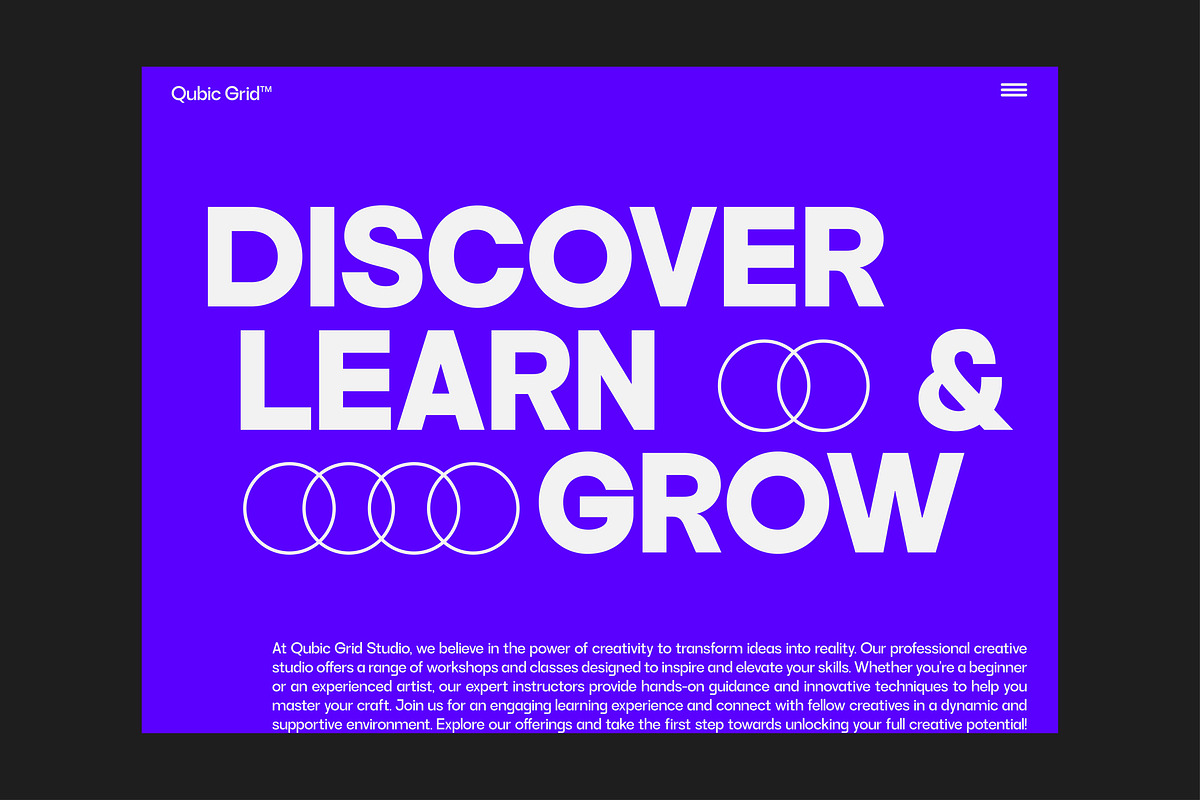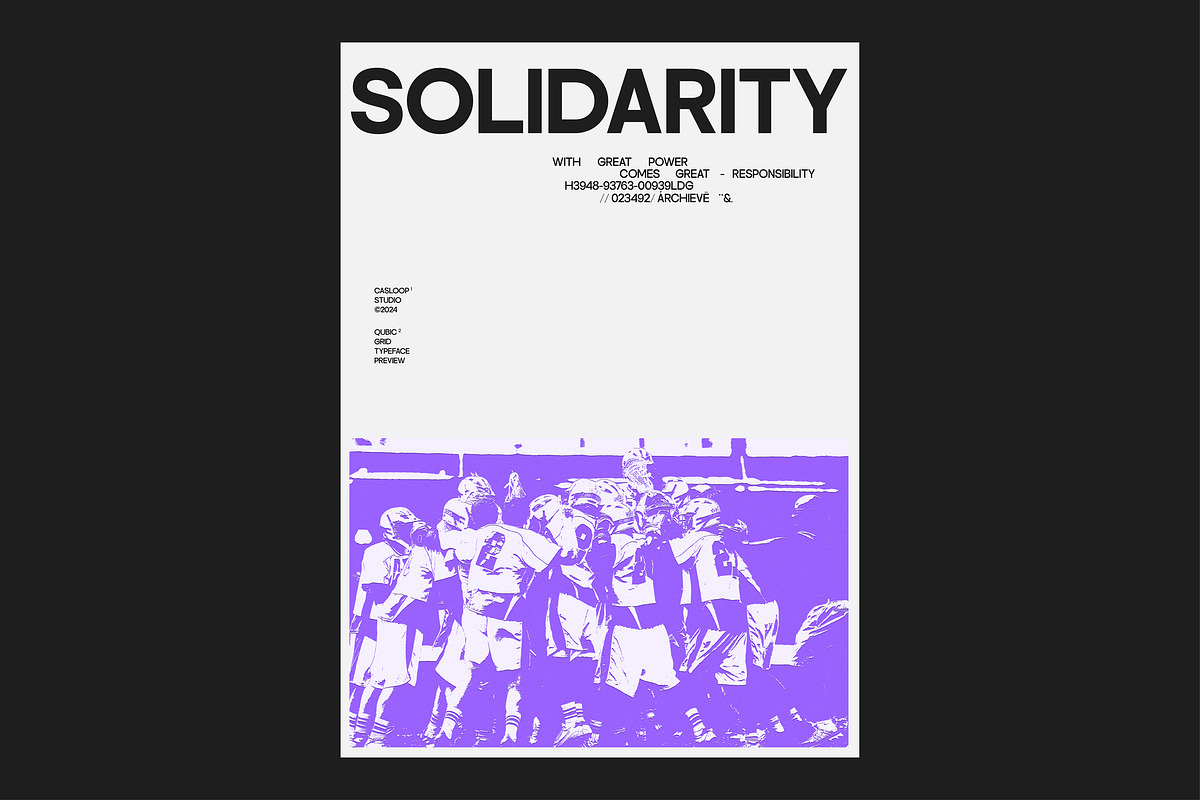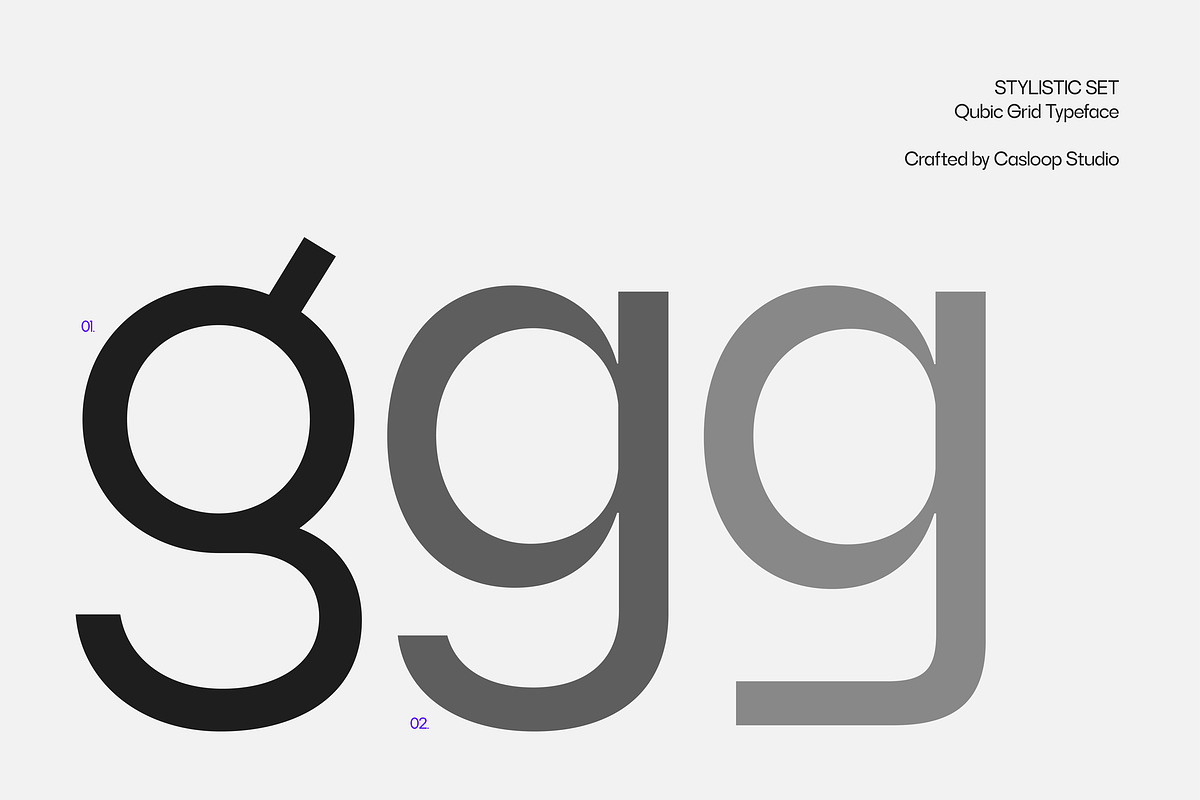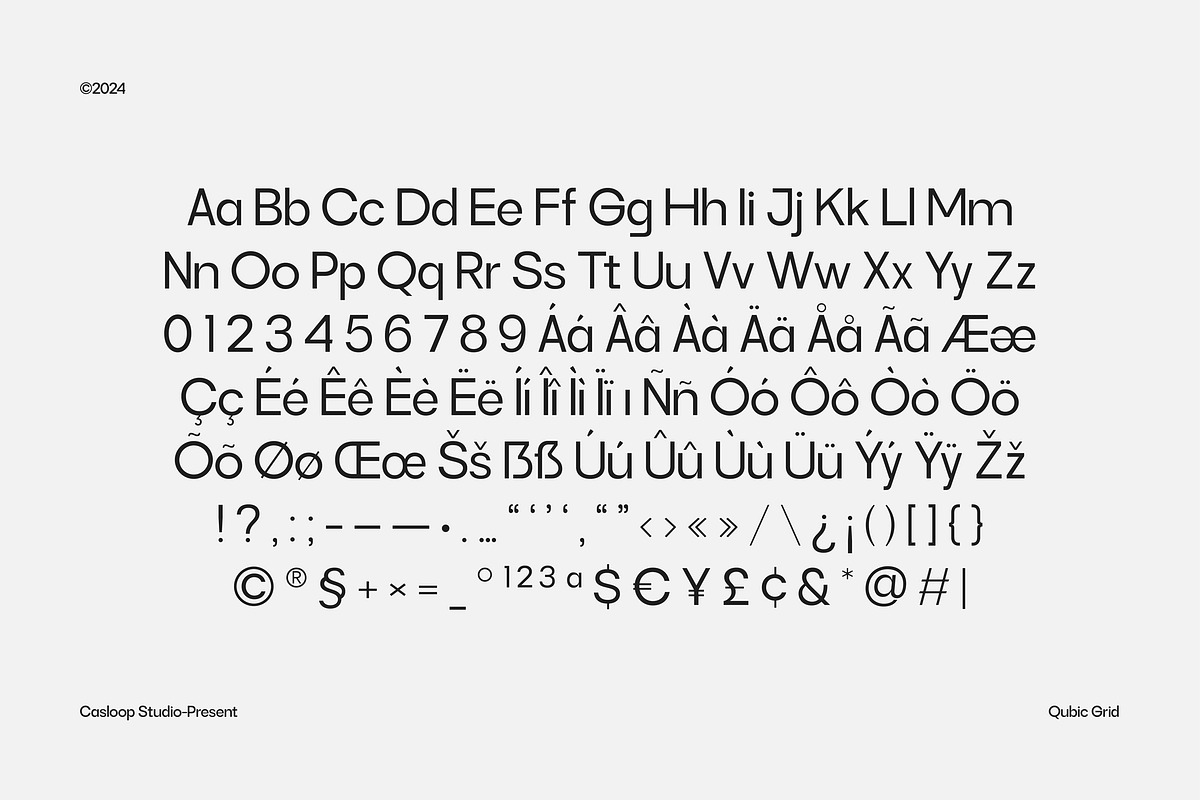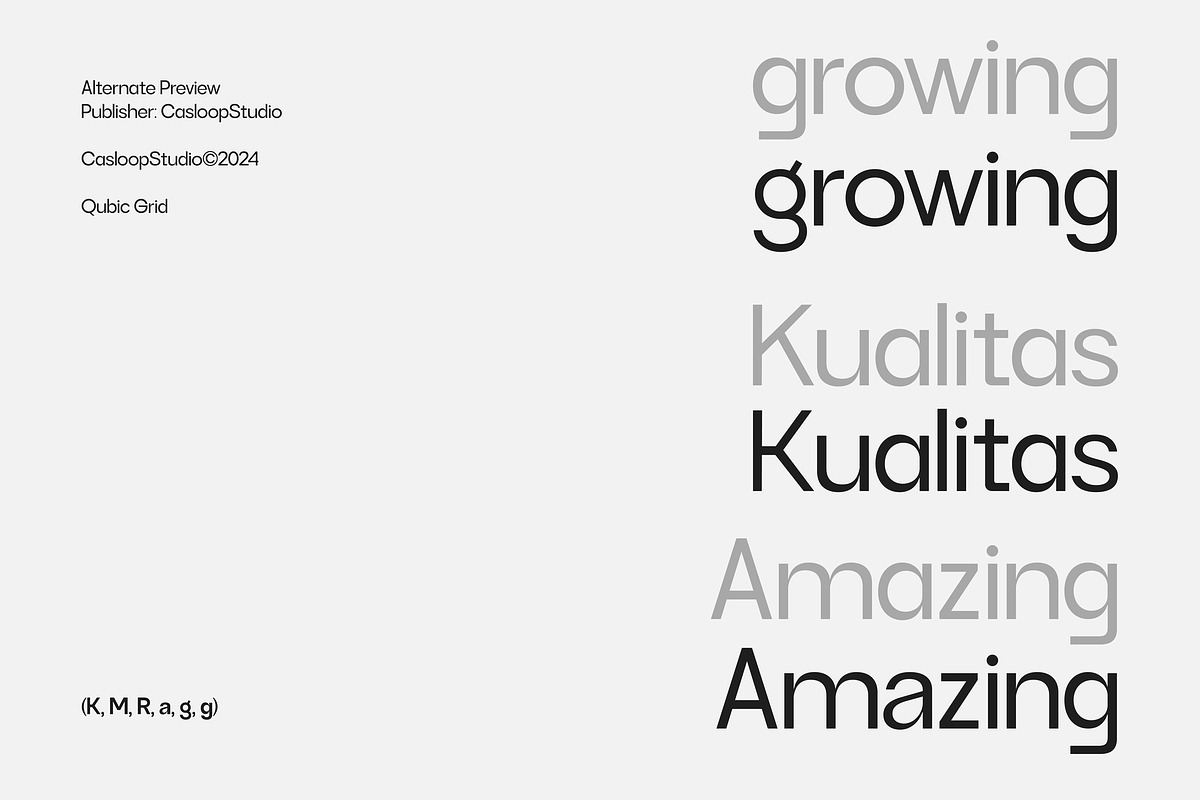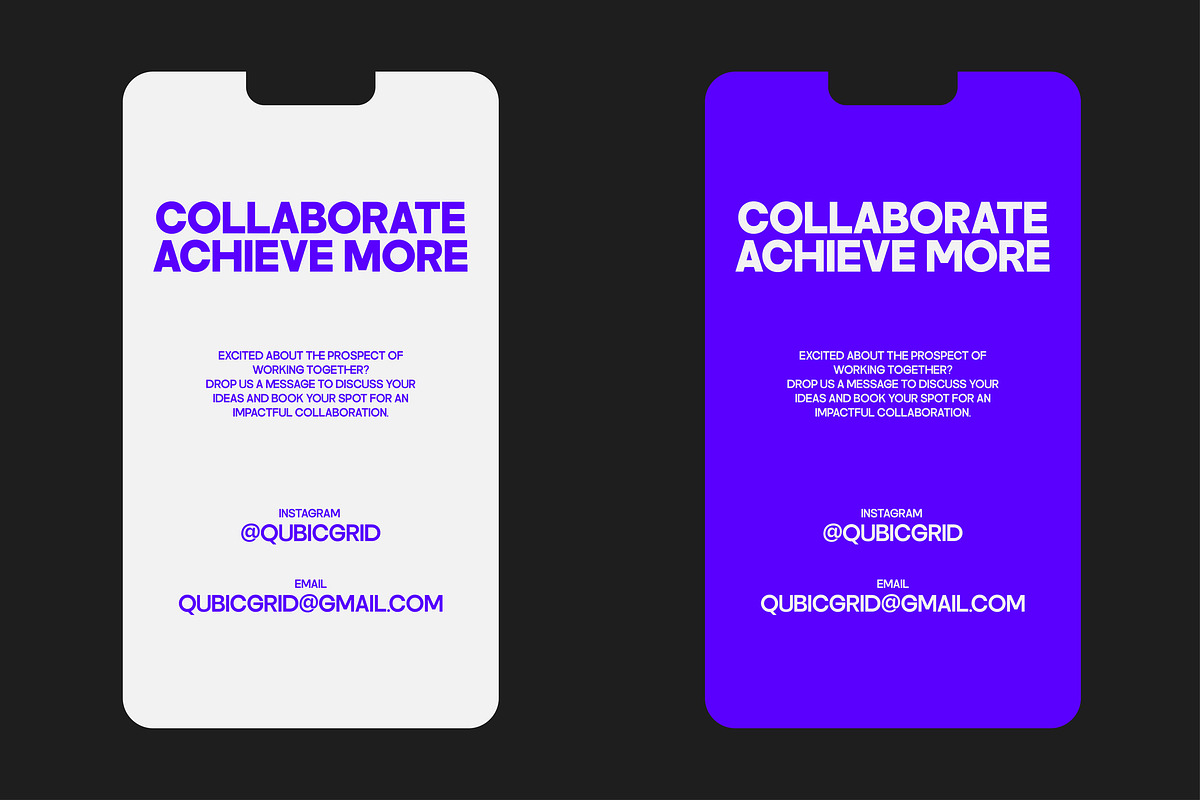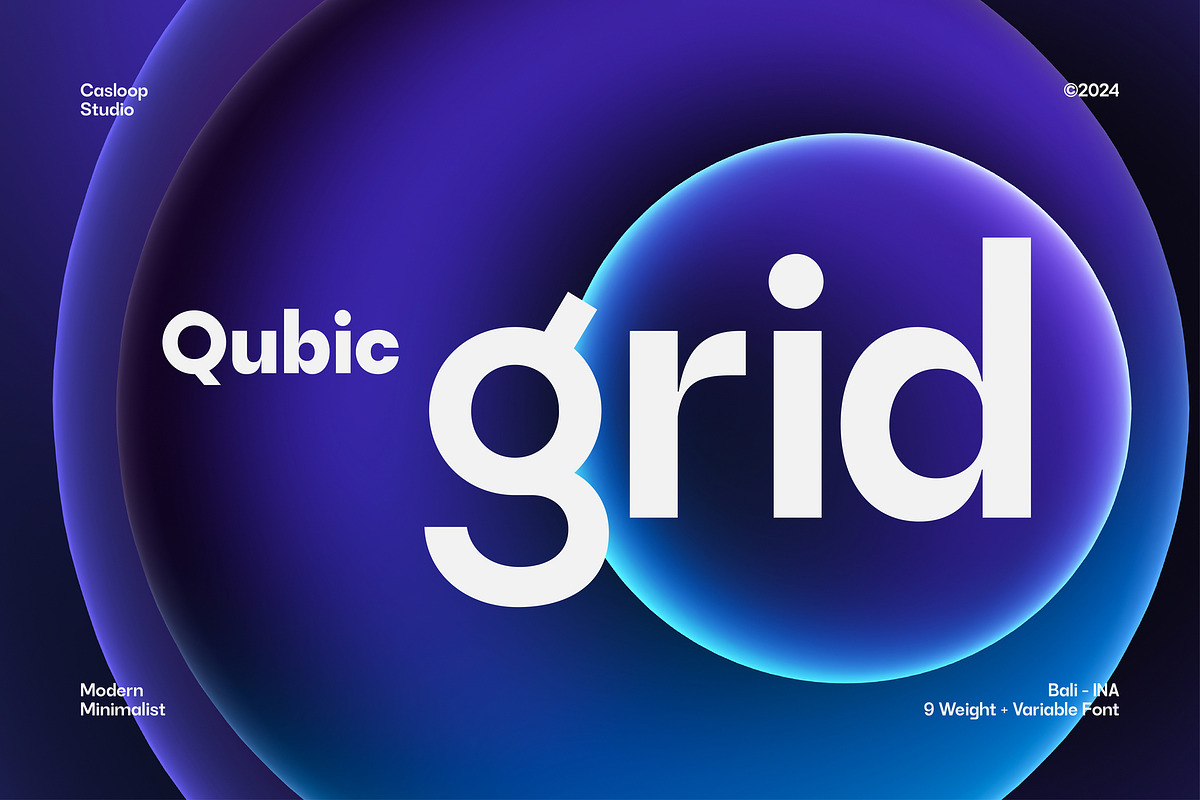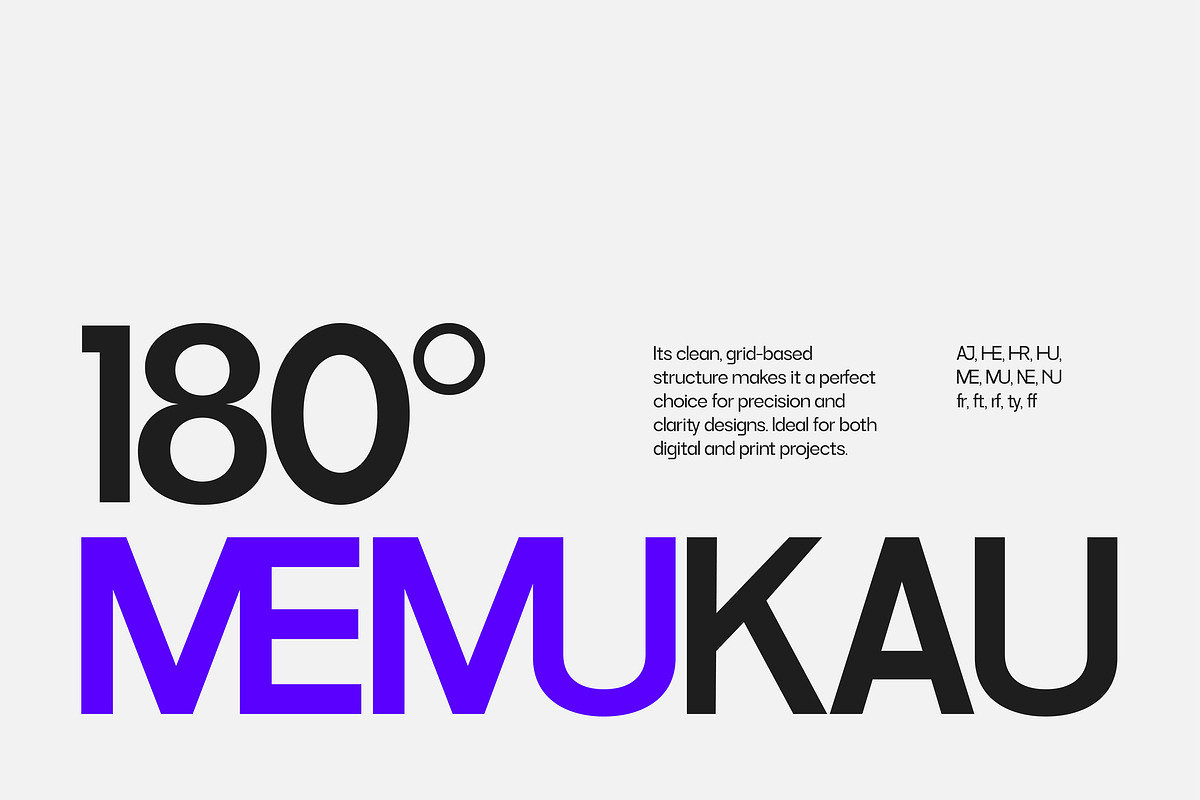
Qubic Grid - Modern Grotesk 9 Fonts
Introducing Qubic Grid – Where Modern Design Meets Timeless Versatility.
Elevate your branding with Qubic Grid, the quintessential geometric sans-serif typeface designed for today's digital and print needs. Qubic Grid blends modernity with professionalism, offering a clean, minimalist aesthetic that effortlessly complements UI/UX design, website interfaces, and dynamic digital media visuals.
Qubic Grid stands out with its distinctive uppercase characters and Grotesque style, showcasing a sleek, contemporary design that is both impactful and legible. Quirky elements make it not only readable but also uniquely expressive. This typeface excels in conveying a sense of trustworthiness and sophistication, making it perfect for business and corporate branding.
The Qubic Grid family includes a range of weights from Thin to Black, along with variable font options, ensuring you have the flexibility needed for various applications—from elegant logo designs and striking text animations to versatile packaging and motion graphics.
Its premium quality and geometric precision offer a blend of originality and modern charm that ensures your projects stand out with a timeless appeal. Discover the perfect balance of dynamic and professional with Qubic Grid – the typeface that brings a touch of modernity to your creative endeavors while maintaining an air of classic elegance.